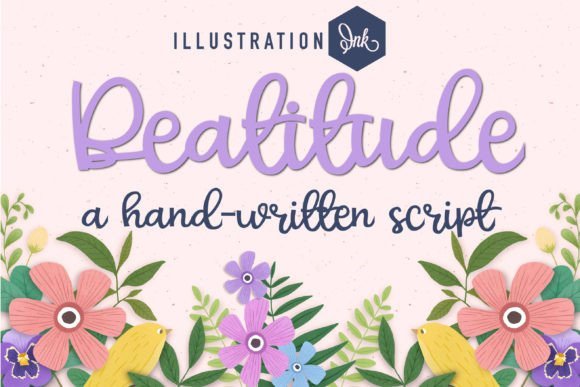
The Handwritten Touch: Unlocking the Potential of Beatitude Font
As designers, we’ve all been there – staring at a blank page, struggling to find the perfect font to bring our creative vision to life. It’s a moment of pure frustration, until suddenly, a spark of inspiration hits, and you remember that handwritten font you fell in love with years ago. For many, that font is Beatitude Font, a beautiful, heavy script with a youthful feel that adds a touch of personality to any project.
Beatitude Font is more than just a pretty face; it’s a versatile tool designed to elevate your designs, from logos and branding to invitations and social media posts. Its gorgeous typographic style makes it perfect for a wide range of projects, and its value lies in its ability to add a human touch to even the most digital of designs.
Beatitude Font Key Features
- Unique Characteristics: Elegant, modern design with a touch of classic sophistication; perfect for various design projects, including branding, advertising, and editorial content
Beatitude Font Review
Beatitude Font is a beautiful, elegant script font that can add a touch of sophistication to your designs. ✨ One of the things I love about this font is its fluid, handwritten feel. It’s perfect for creating a sense of warmth and approachability in your typography.
- Works well for both digital and print designs, from business cards to wedding invitations
However, there are a few limitations to consider. ⚠️ The font can be a bit difficult to read in small sizes, and some of the letters may appear disconnected or uneven. Additionally, the font may not be the best choice for designs that require a lot of bold, heavy text.
Overall, I would recommend Beatitude Font for designers who want to add a touch of elegance and sophistication to their typography. While it may not be the most versatile font, it’s perfect for creating a sense of warmth and approachability in your designs.
The Beatitude Font is ideal for:
- Birth announcements and baby shower invitations
- Graduation announcements and party invitations
- Any design project that requires a elegant and sophisticated look.